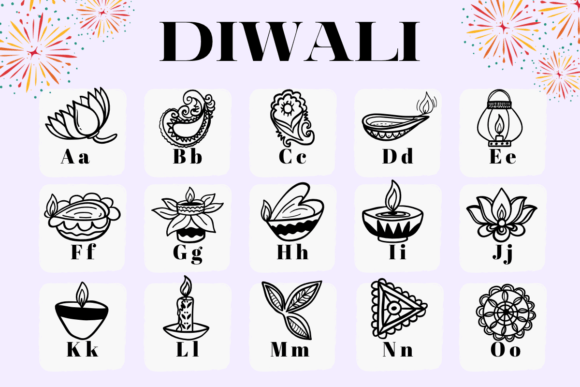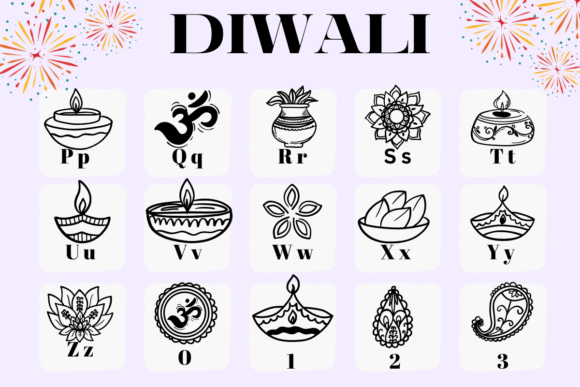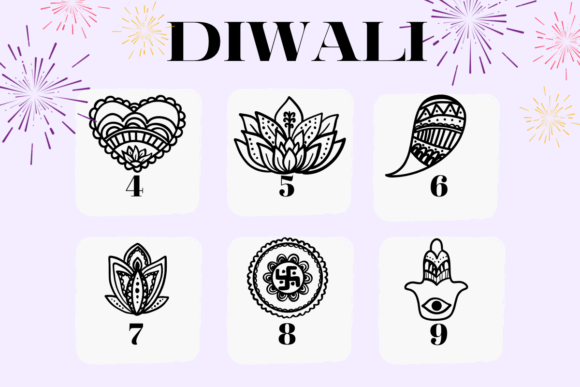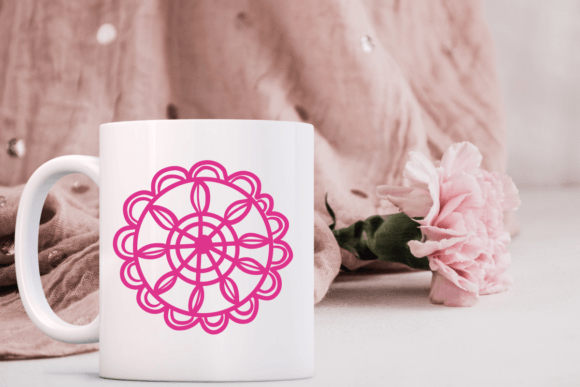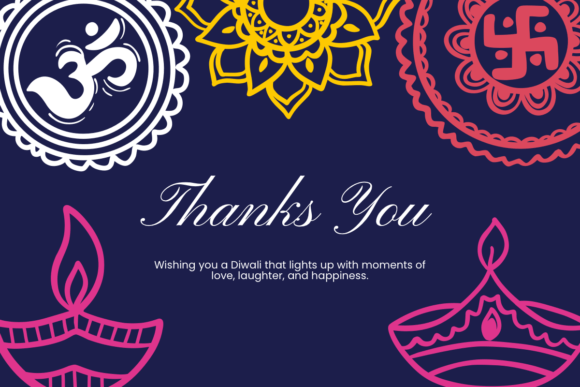
Diwali Font: Elevate Your Designs with a Festive Sketch Style
Diwali, the festival of lights, is a time for celebration, creativity, and self-expression. For designers and crafters, it’s the perfect opportunity to add a touch of festivity to their projects. Introducing the Diwali Font, a unique dingbats font that captures the essence of Diwali with its beautiful sketch style. In this article, we’ll explore how this font can enhance your creative projects, from wedding invitations to DIY crafts and decorations.
What is Diwali Font?
Diwali Font is a dingbats font that features a stunning sketch style, reminiscent of traditional Indian art. The font is designed to evoke the vibrant spirit of Diwali, with intricate details and ornate patterns. The result is a beautiful and eye-catching font that’s perfect for adding a touch of festivity to your designs.
Features of Diwali Font
- Sketch Style: Diwali Font features a unique sketch style that’s perfect for creating traditional and modern designs.
- Dingbats Font: The font is a dingbats font, which means it’s comprised of decorative symbols, shapes, and patterns.
- Festive Theme: The font is designed specifically for Diwali, making it perfect for creating festive designs.
- Versatile: Diwali Font can be used for a wide range of creative projects, from wedding invitations to DIY crafts and decorations.
Creative Ways to Use Diwali Font
Diwali Font is an incredibly versatile font that can be used for a wide range of creative projects. Here are some ideas to get you started:
- Wedding Invitations: Add a touch of festivity to your wedding invitations with Diwali Font. Use it to create beautiful and unique invitation cards that will set the tone for your special day.
- DIY Crafts: Diwali Font is perfect for DIY crafts, such as handmade cards, gift tags, and decorations. Use it to add a personal touch to your crafts and make them truly special.
- Decorations: Use Diwali Font to create stunning decorations for your home or office. From wall art to lanterns, this font can add a touch of festivity to any room.
- Logos: Diwali Font can also be used to create unique and eye-catching logos for your business or brand.
Tips for Using Diwali Font
Here are some tips for using Diwali Font in your designs:
- Experiment with Colors: Diwali Font looks stunning in a range of colors, from bright and bold to soft and pastel. Experiment with different colors to find the perfect look for your design.
- Mix and Match: Don’t be afraid to mix and match Diwali Font with other fonts and design elements. This will help you create a unique and eye-catching design.
- Keep it Simple: While Diwali Font is intricate and ornate, it’s best to keep your design simple and clean. This will help the font shine and prevent your design from looking cluttered.